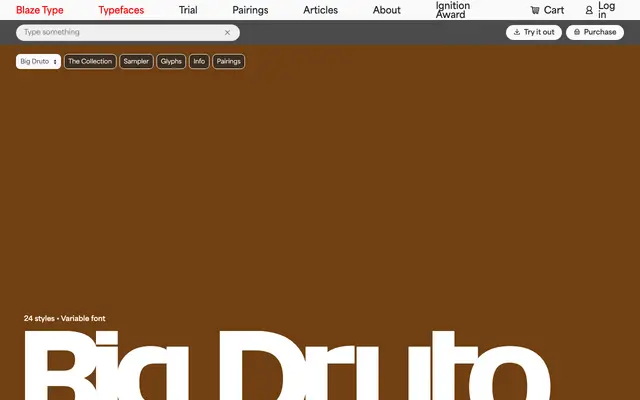
Big Druto specimen from Blaze Type
A high-density display sans built to eliminate excess white space in large titles, with a towering x-height and squarish letterforms that read as solid blocks of text.
Conceived as an extension of Blaze Type's Druto, it pushes density further by maximising x-height, attaching diacritics and stripping descenders to near nothing. The Display subfamily is designed with negative tracking built in, making each glyph a considered piece of a tightly packed whole. Twenty-four styles across two subfamilies cover Regular to Heavy with matching italics, and variable font support is included throughout.
Low contrast, squarish letterforms with a very large x-height and minimal descenders designed for dense, large-size setting. The reduced humanist influence and tight spacing place it in the geometric sans tradition, though its display-focused construction gives it a distinctive functional character.